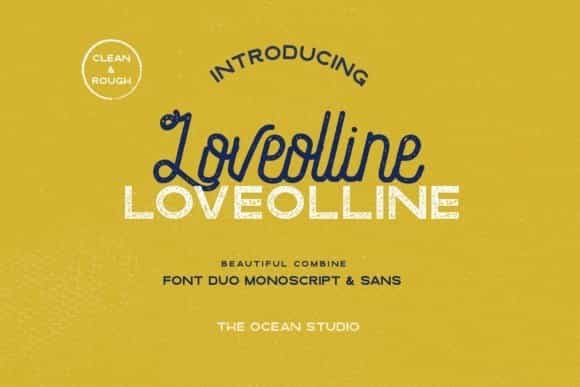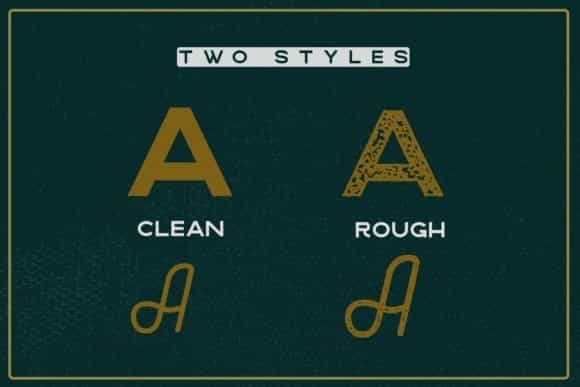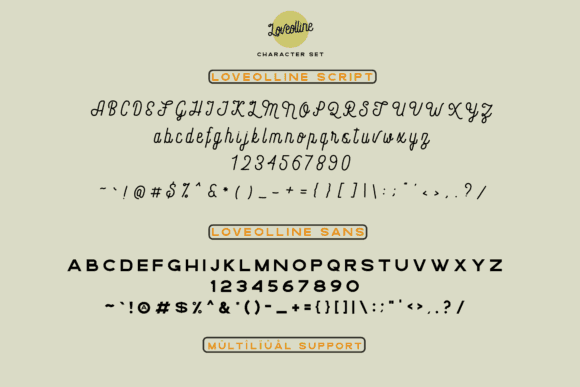
Loveolline Font Duo
Loveolline is a font duo that consists of modern and vintage styles, it can be used both on the script and Display Sans serif typeface. These two beautiful fonts would be just great to put together in your design.